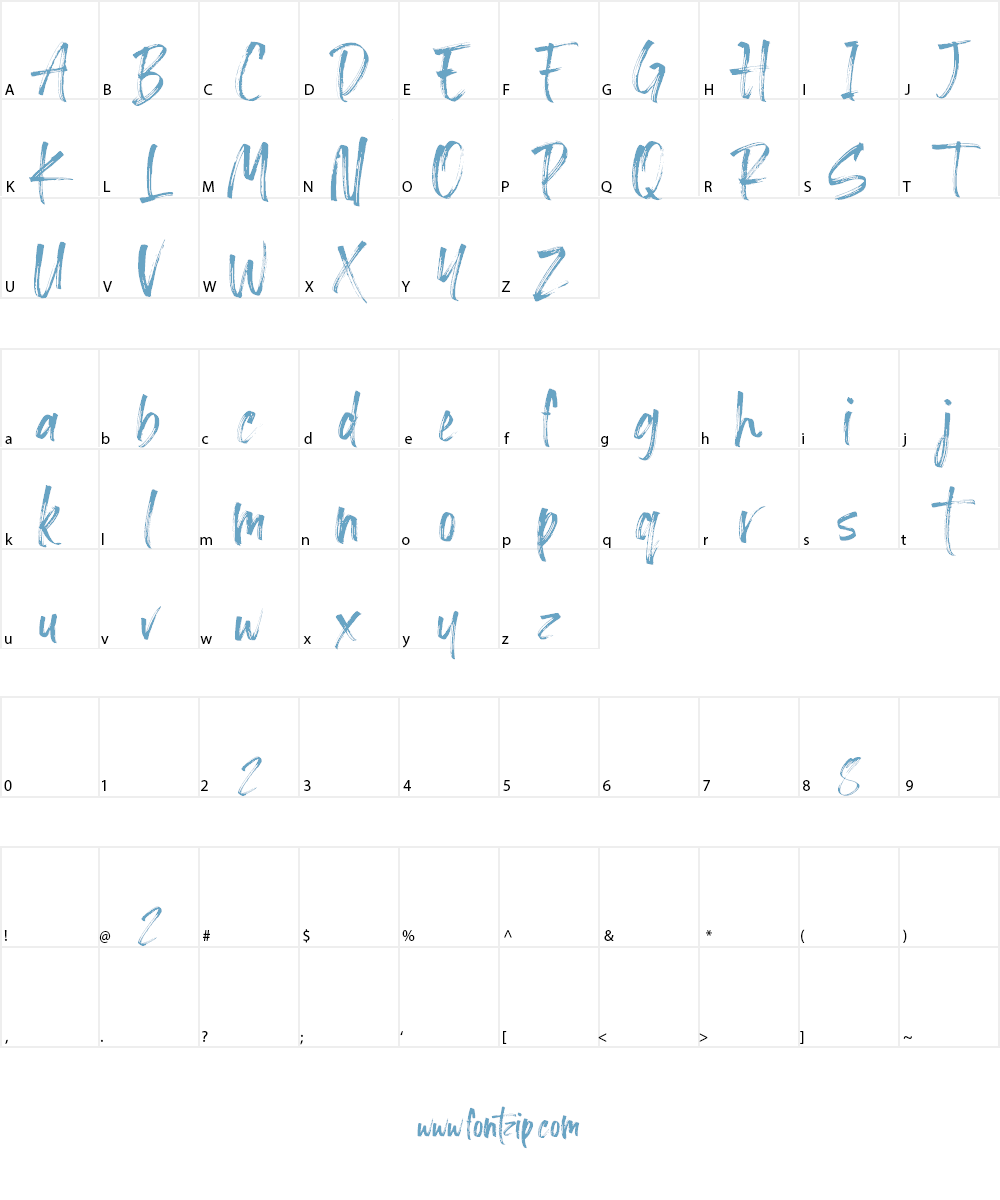
Loutters, a very prominent and eye catching handwriting. With a fast and textured sweep style, Loutters are very easy to use for a variety of design needs such as logos, brands, packaging, book titles, etc., and are suitable for use in any background image.